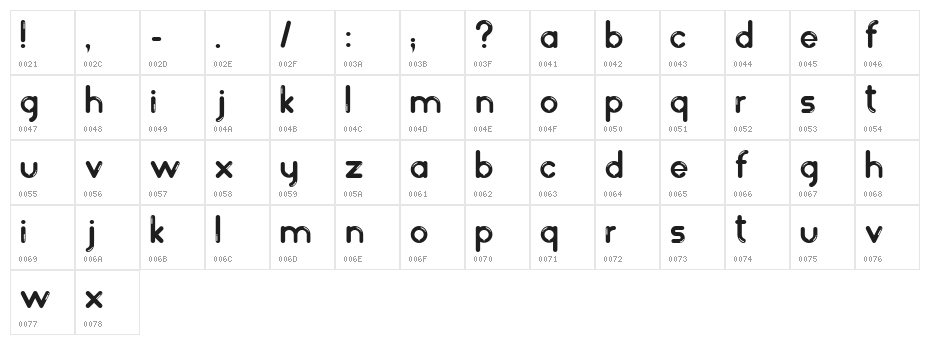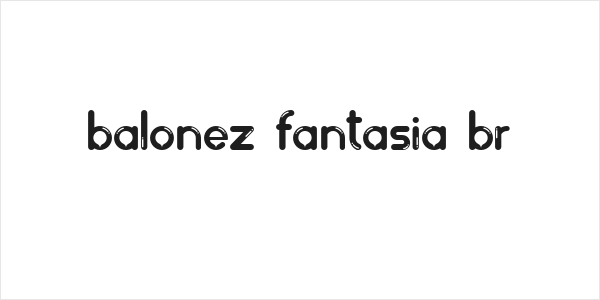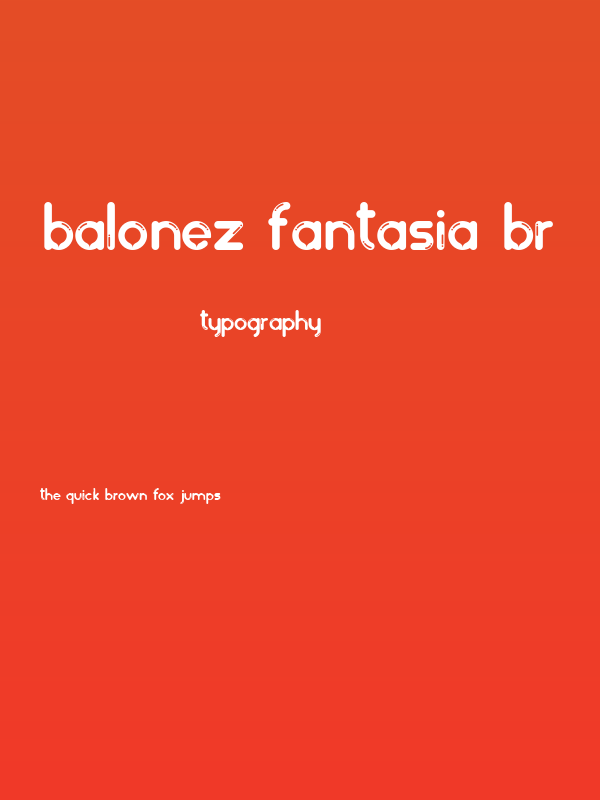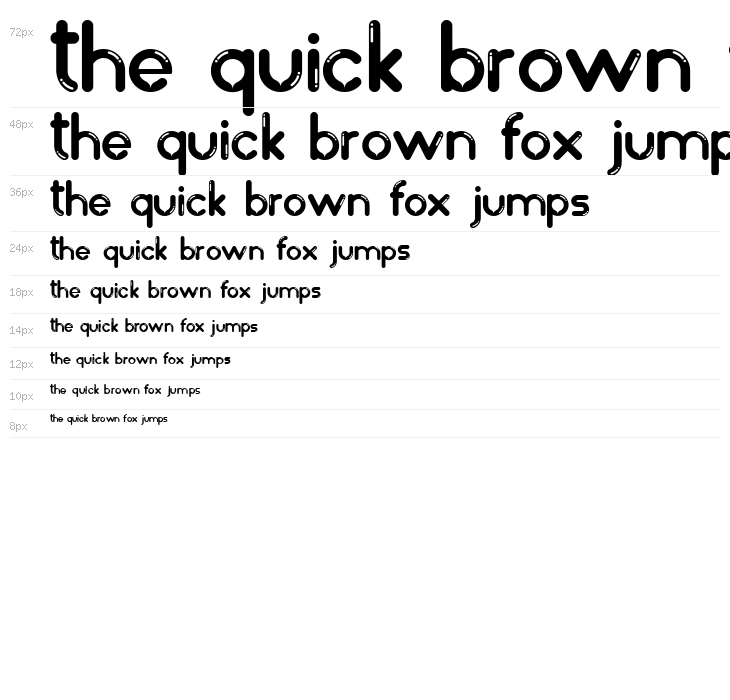
balonez fantasia br Font
balonez fantasia br Description
This playful and whimsical font features a unique combination of bold, rounded characters with a decorative flair. Each letter is adorned with subtle, playful cutouts and patterns, giving it a distinctive and eye-catching appearance. The font maintains a consistent weight throughout, providing a sense of balance and uniformity. Its rounded edges and smooth curves contribute to a friendly and approachable aesthetic, making it ideal for creative and informal designs. The font's decorative elements add a touch of fun and creativity, making it suitable for projects that aim to capture attention and convey a sense of joy and playfulness.